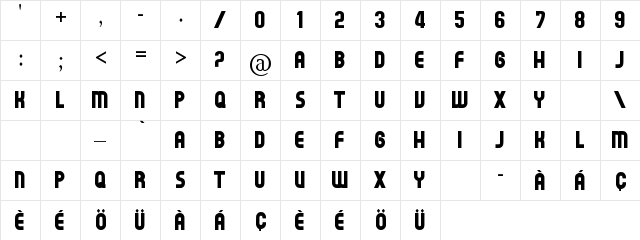
F.C. BARCELONA Regular
Design Context for F.C. BARCELONA Typeface
F.C. BARCELONA takes a measured approach to typography — its balanced proportions and neutral character make it a reliable workhorse for both digital and print work.